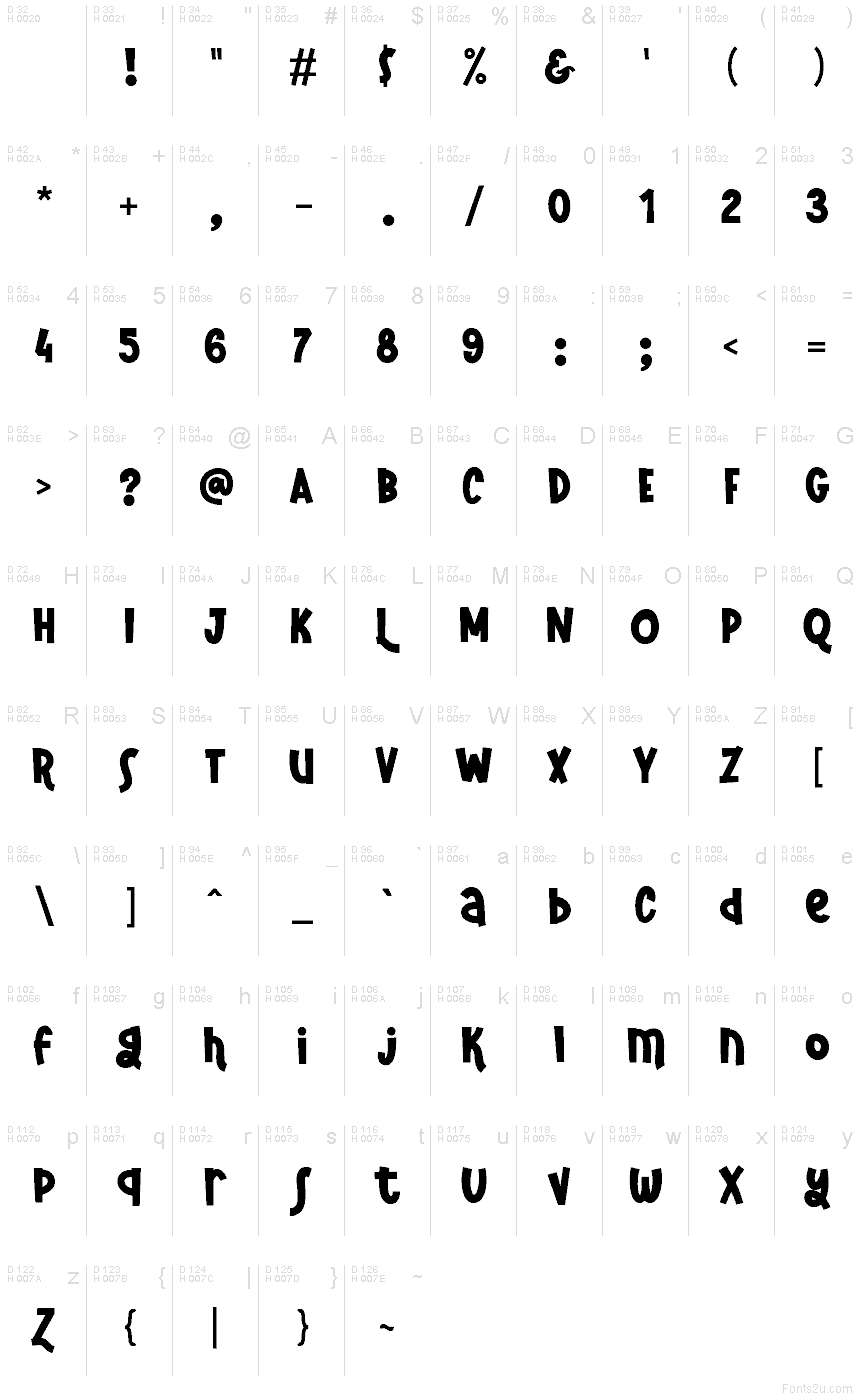
Tropic Sunset
Tropic Sunset font by Dm Letter Studio - Dimas Prasetyo is a free bold comic display font. It stands out with juicy, hand-cut curves and lively, surfy sway—like letters carved from sun-bleached driftwood. Thick-and-thin strokes wobble just enough to feel human, while tight counters and slightly pinched terminals pack a punch at headline sizes without turning clumsy.
Using Tropic Sunset, your titles jump for summer festivals, tiki bar menus, popsicle packaging, beach posters, kids’ event flyers, and travel thumbnails. This free font shines on colorful gradients and grainy textures; set it large and give it room to breathe. For contrast, pair it with a clean, light grotesk for body copy, or keep the vibe loud with all-caps and generous tracking.